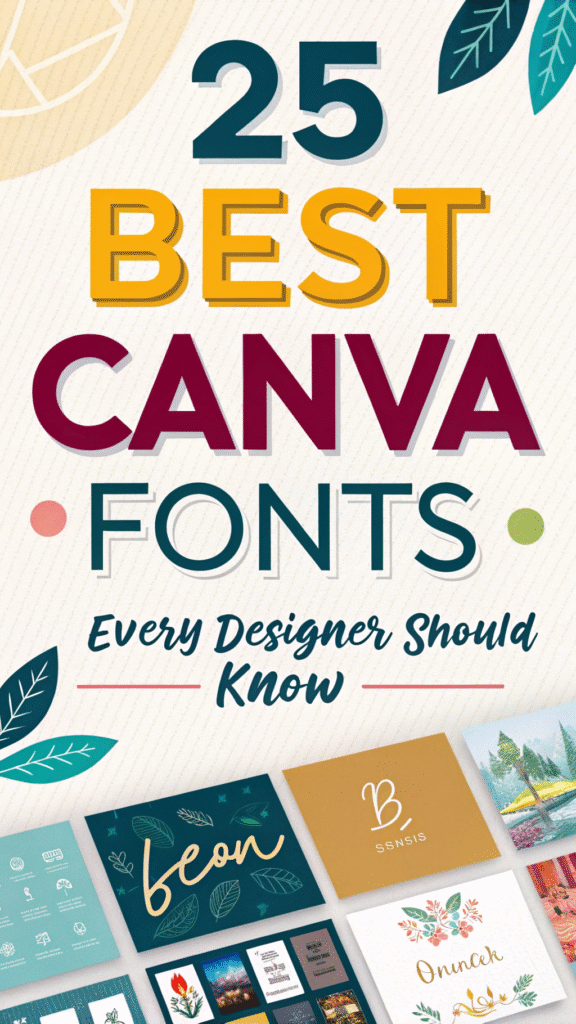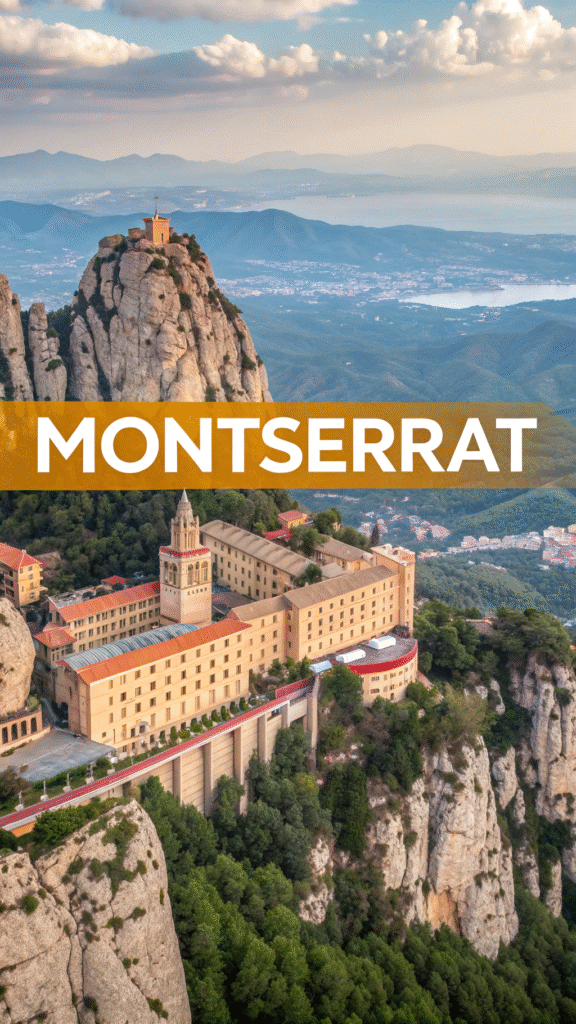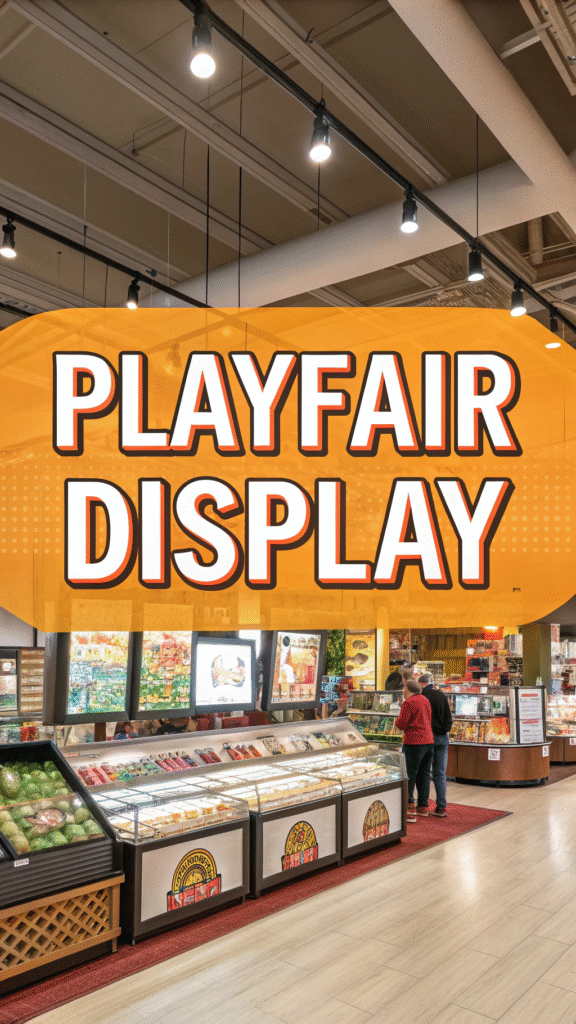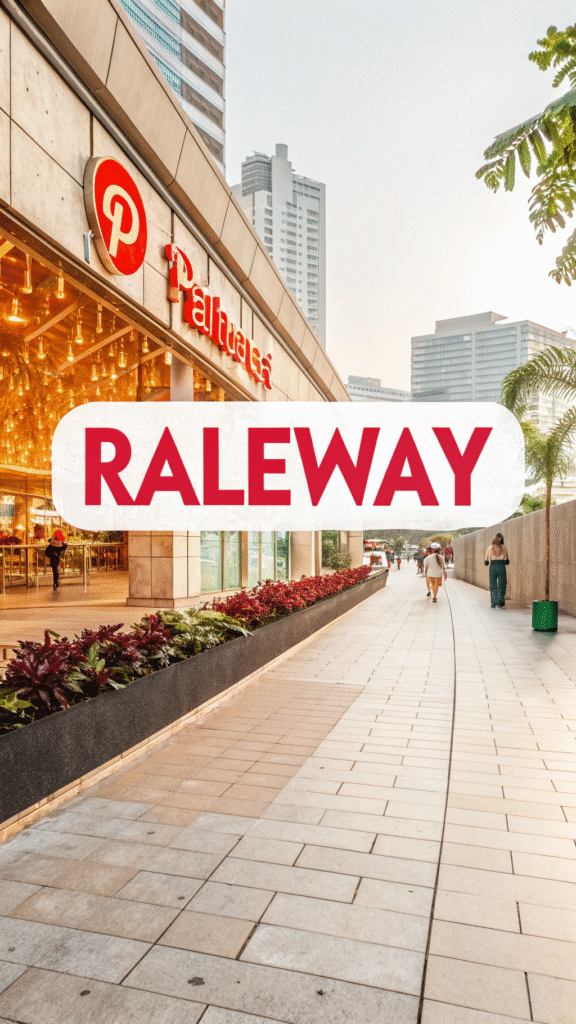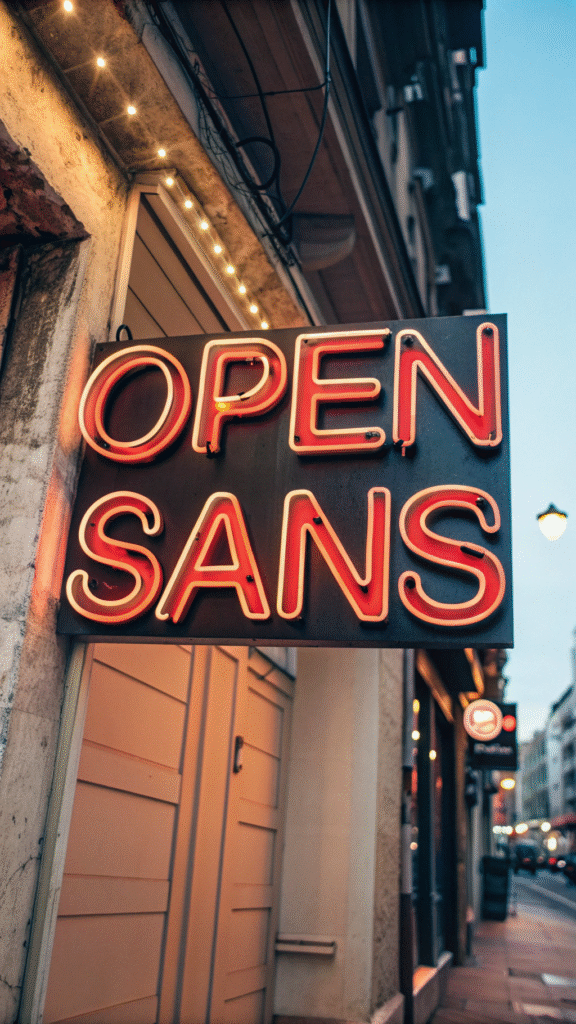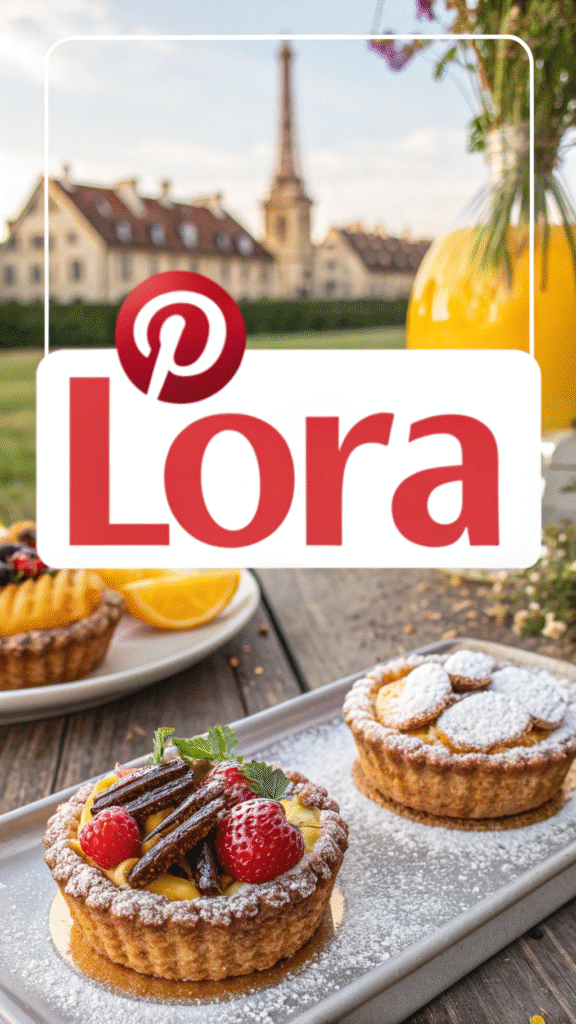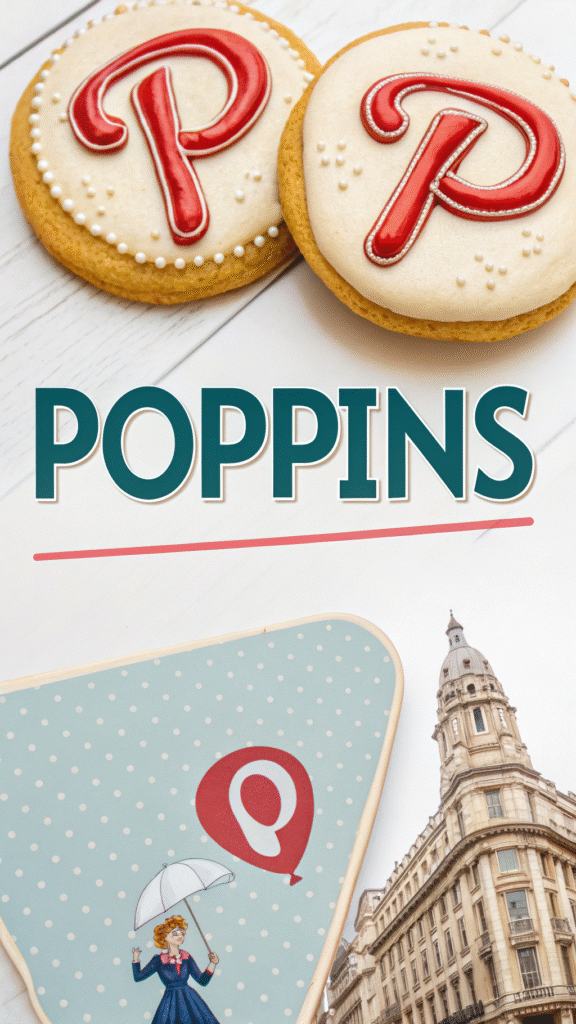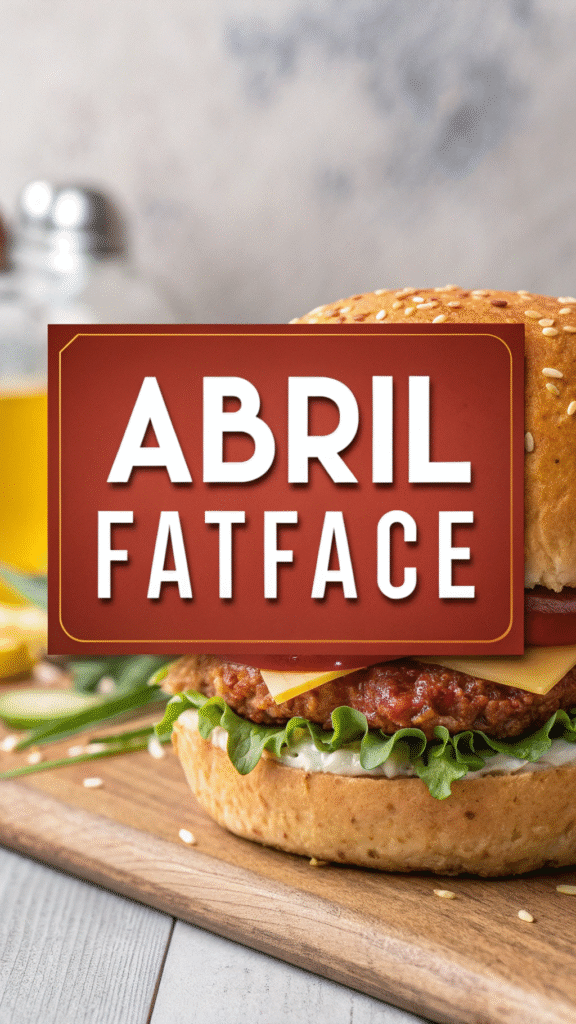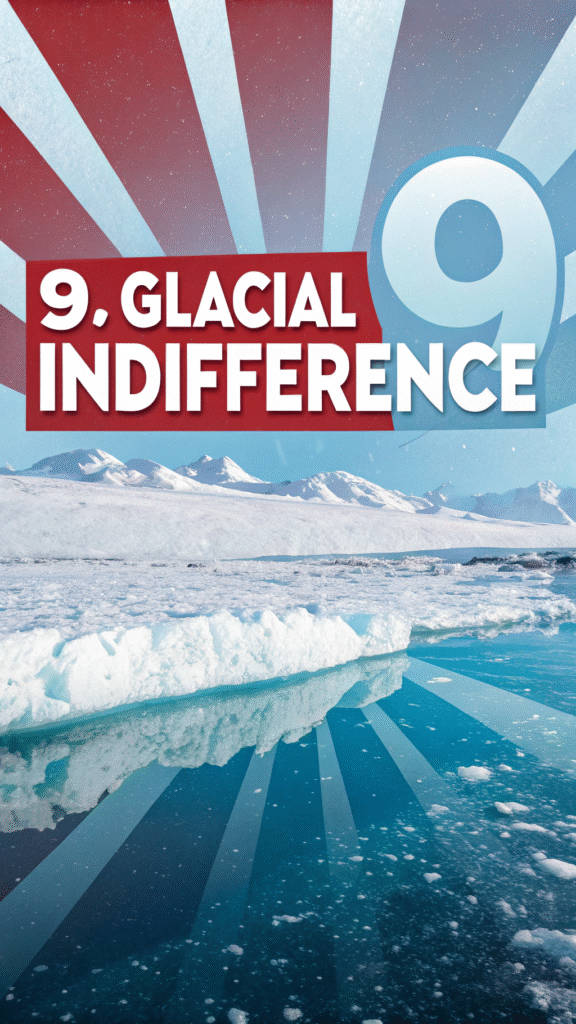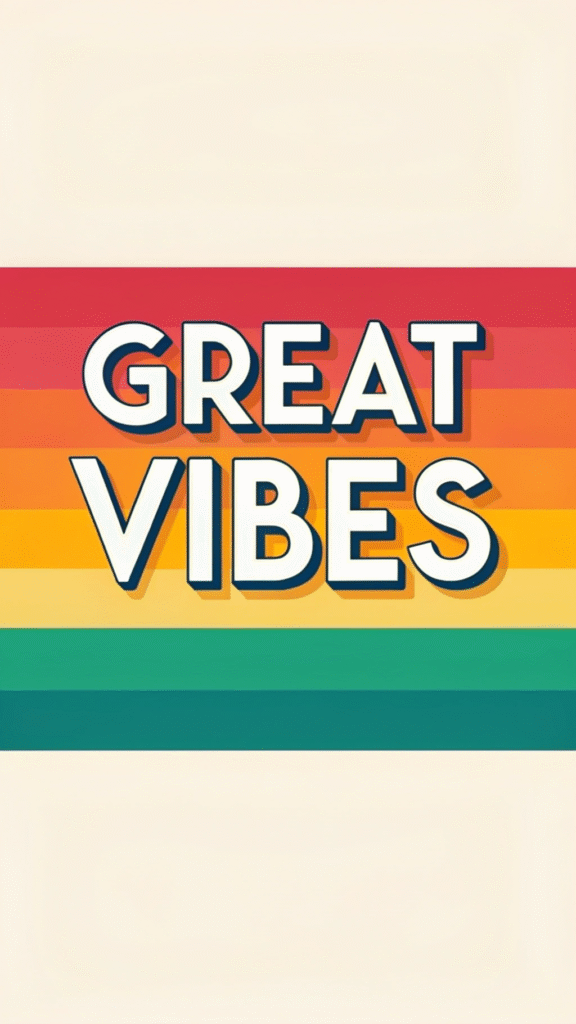
25 Best Canva Fonts Every Designer Should Know
Introduction
Fonts are more than just letters — they are the visual voice of your design. Whether you’re creating a logo, social media post, or presentation, the right font can elevate your work from ordinary to outstanding. Canva offers a massive font library, but knowing which fonts stand out can save you time and help your designs look more professional.
In this article, we’ll explore 25 Canva fonts every designer should know about, covering everything from elegant serif fonts to bold sans-serifs and modern scripts. Let’s dive in and find your next go-to typeface!
Why Fonts Matter in Design
Fonts influence perception, emotion, and brand identity. A luxury brand uses elegant serif fonts, while a tech startup might prefer clean sans-serifs for a modern feel. When you choose the right font in Canva, you:
• Communicate your brand personality clearly
• Enhance readability and engagement
• Create a strong visual hierarchy
• Make your designs look cohesive and professional
25 Canva Fonts Every Designer Should Know
Let’s explore the top fonts you can find in Canva — and when to use them.
1. Montserrat
A modern sans-serif font with geometric shapes. Ideal for headings, logos, and minimalist designs.
Best for: Websites, branding, tech startups.
2. Playfair Display
An elegant serif font with a high contrast that adds sophistication.
Best for: Fashion brands, blogs, and editorial designs.
3. Raleway
Sleek and stylish, perfect for headers or minimal branding.
Best for: Portfolios and luxury brand designs.
4. Open Sans
Clean and readable — a designer’s staple.
Best for: Long-form content, corporate presentations.
5. Lora
A well-balanced serif with a modern touch.
Best for: Blogs, feminine branding, and magazines.
6. Poppins
A rounded sans-serif that feels friendly and professional.
Best for: Infographics, modern branding, tech visuals.
7. Abril Fatface
Dramatic and bold, ideal for grabbing attention.
Best for: Posters, magazine covers, luxury branding.
8. Bebas Neue
A tall, bold sans-serif that screams modern confidence.
Best for: Headlines, ads, and banners.
9. Glacial Indifference
A clean, contemporary typeface with excellent readability.
Best for: Corporate and portfolio websites.
10. Great Vibes
A beautiful cursive script with a personal touch.
Best for: Wedding invitations, beauty brands, social media.
11. Roboto
Highly versatile and easy to read on any screen.
Best for: Web design, presentations, UI/UX.
12. Cinzel
Inspired by classical Roman inscriptions — timeless and elegant.
Best for: Logos, formal branding, and classic design themes.
13. Pacifico
Playful and casual — a handwritten-style script font.
Best for: Fun brands, lifestyle content, and social media posts.
14. Josefin Sans
Stylish with a vintage flair.
Best for: Retro branding, creative portfolios, and design blogs.
15. Oswald
A bold sans-serif with a strong personality.
Best for: Banners, bold statements, and impactful titles.
16. Cormorant Garamond
Elegant and traditional — perfect for classy branding.
Best for: Book covers, weddings, and premium content.
17. Anton
All-caps bold font that instantly demands attention.
Best for: Promotions, hero sections, and digital ads.
18. DM Serif Display
Elegant, high-contrast serif with modern charm.
Best for: Editorial design, brand identities, and luxury themes.
19. League Spartan
Strong, geometric sans-serif with versatility.
Best for: Marketing materials and minimalist layouts.
20. Dancing Script
A flowing cursive font that adds personality.
Best for: Greeting cards, invitations, and feminine designs.
21. Nunito
Friendly, rounded, and modern — excellent for digital use.
Best for: UI design, apps, and web interfaces.
22. Amatic SC
Quirky and artistic, perfect for creative projects.
Best for: Handcrafted brands, lifestyle blogs, and casual themes.
23. Merienda
A friendly script font with balanced curves.
Best for: Food brands, social media, and DIY projects.
24. Noto Serif
Professional and versatile serif for readability.
Best for: Articles, corporate design, and educational use.
25. Libre Baskerville
Classic and readable — a timeless font choice.
Best for: Blogs, printed materials, and branding.
How to Choose the Right Font Combination in Canva
Font pairing is key to visually balanced designs. Here’s a quick guide:
• Contrast matters: Pair a serif with a sans-serif for visual balance (e.g., Playfair Display + Open Sans).
• Stick to 2–3 fonts max: Too many fonts can overwhelm your design.
• Follow hierarchy: Use bold fonts for headings and simple ones for body text.
• Match tone to brand: A playful brand? Try Pacifico. A corporate one? Stick to Open Sans or Roboto.
Pro Tips for Using Fonts in Canva
• Use uppercase for headlines to add impact.
• Adjust letter spacing (tracking) for better readability.
• Explore Canva’s Font Combinations tool for ready-made pairings.
• Always preview your design in both desktop and mobile views.
• Keep brand consistency by saving your font choices in the Canva Brand Kit.
Conclusion
Fonts are the backbone of every great design. The right choice can instantly transform your visuals, making them professional, consistent, and memorable. Whether you’re using Canva for business, branding, or personal projects, experimenting with these 25 top fonts will help you build a stronger creative identity.
So, open Canva today, try out a few of these fonts, and see how much your designs can improve — one letter at a time!
FAQs
1. Are Canva fonts free to use?
Most fonts in Canva’s free plan are available for all users, but some premium fonts require a Canva Pro subscription.
2. Can I upload my own fonts in Canva?
Yes, if you have a Canva Pro or Enterprise plan, you can upload custom fonts in the Brand Kit.
3. What’s the best font for logos in Canva?
Montserrat, Cinzel, and Playfair Display are excellent for logos because of their clean and distinctive looks.
4. How many fonts should I use in one design?
Ideally, use no more than two to three fonts to keep your design balanced and professional.
5. Does Canva support font pairing suggestions?
Yes, Canva offers pre-designed font combinations to help you match complementary typefaces effortlessly.